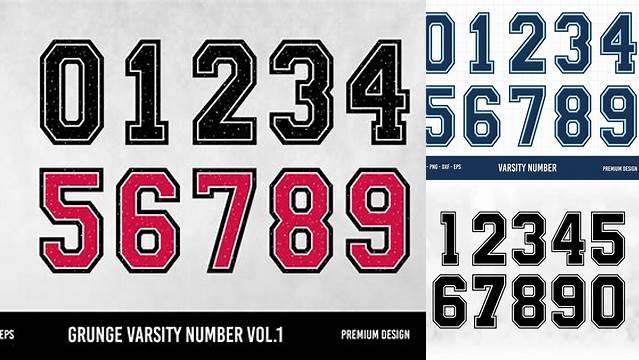
Free Jersey Number Fonts: Downloads And Styles
Hey guys! Ever wondered where to snag those cool jersey number fonts for your designs? You've come to the right place! Whether you're designing a sports jersey, creating graphics for a team, or just love the sporty aesthetic, the right font can make all the difference. This guide dives deep into the world of free jersey number fonts, covering everything from where to find them to how to choose the perfect one. We'll explore different styles, licensing, and even some tips on how to customize them. So, let's get started and find the perfect font to give your project that winning look!
3. Popular Styles of Jersey Number Fonts
When it comes to jersey number fonts, style is everything! You want something that’s both legible and visually appealing, fitting the overall aesthetic of your design. Some popular styles include block fonts, which are bold and impactful, perfect for jerseys that need to stand out. Stencil fonts, with their broken lines, offer a more rugged and sporty feel. Varsity fonts, reminiscent of classic collegiate lettering, are another great option for a traditional look. Consider the specific sport and team you’re designing for – a sleek, modern font might be great for a basketball jersey, while a classic block font could be perfect for a football uniform. Don't be afraid to experiment and see what works best for your project. Remember, the font should complement the overall design and enhance its visual appeal.
4. Free Block Fonts for Jersey Numbers
Ah, block fonts – the powerhouse of jersey lettering! These fonts are bold, impactful, and incredibly easy to read, making them a top choice for jersey numbers. The strong, clean lines of free block fonts ensure maximum visibility, whether the jersey is on the field or in the stands. When searching for block fonts, look for options with uniform thickness and minimal embellishments. This will help maintain legibility and give your design a professional look. Websites like Fontspace and Dafont have a wide selection of block fonts available for download. Just remember to double-check the licensing terms before using them in your projects. A well-chosen block font can instantly elevate your design, giving it that classic, sporty feel that everyone loves!
5. Free Stencil Fonts for Jersey Numbers
Want to add a bit of ruggedness and a vintage vibe to your jersey design? Then free stencil fonts are your best bet! These fonts, characterized by their broken lines and gaps, evoke a sense of history and toughness, making them perfect for sports teams with a strong identity. Stencil fonts are not only visually appealing but also highly functional, as they mimic the look of numbers that have been stenciled onto fabric. When selecting a stencil font, consider the size and spacing of the gaps – you want something that’s both stylish and legible. Many websites offer a variety of stencil fonts for free download, but always be sure to check the licensing agreements to ensure you can use them for your intended purpose. A well-chosen stencil font can add a unique and edgy touch to your jersey design.
6. Free Varsity Fonts for Jersey Numbers
For a classic, collegiate look, you can't go wrong with free varsity fonts! These fonts, inspired by traditional university lettering, exude a sense of heritage and team spirit. Varsity fonts typically feature bold, slightly slanted letters, giving them a dynamic and energetic feel. They're perfect for creating a timeless design that resonates with fans and players alike. When choosing a varsity font, look for options that are clean and legible, with well-defined serifs or slab serifs. This will ensure that the numbers are easy to read, even from a distance. Websites like Google Fonts and Fontspace offer a variety of varsity fonts that you can download for free. Just remember to check the licensing terms before using them in your projects. A varsity font can instantly add a touch of tradition and class to your jersey design.
7. Tips for Choosing the Right Font Size
Okay, guys, let’s talk size! Choosing the right font size for jersey numbers is crucial for visibility and aesthetics. You want the numbers to be large enough to be easily read from a distance, but not so large that they overwhelm the rest of the design. A good rule of thumb is to consider the size of the jersey itself and the viewing distance. For example, numbers on a football jersey might need to be larger than those on a basketball uniform. Also, think about the font style – a bold block font might appear larger than a thinner, more delicate font, even at the same point size. Always test out different sizes and view them from a distance to ensure they're legible. Don’t underestimate the impact of font size; it can make or break your design!
8. How to Customize Free Jersey Number Fonts
Want to take your jersey design to the next level? Customizing free jersey number fonts is the way to go! Even if you're starting with a free font, you can tweak it to perfectly match your team's identity and style. Simple adjustments like changing the color, adding an outline, or applying a shadow effect can make a huge difference. For more advanced customization, you can use design software like Adobe Illustrator or Inkscape to modify the shape of the letters, adjust the spacing, or even add unique design elements. Don’t be afraid to experiment and push the boundaries of the original font. Customization allows you to create a truly unique and memorable jersey design that stands out from the crowd.
9. Using Font Software for Jersey Number Design
If you're serious about jersey design, investing in font software can be a game-changer. Programs like Adobe Illustrator, CorelDRAW, and Inkscape (which is free!) offer powerful tools for working with fonts and creating custom designs. These platforms allow you to manipulate fonts in ways that go far beyond basic text editing. You can adjust the kerning (the space between letters), modify the shape of individual characters, and even create your own custom fonts from scratch. Using font software gives you unparalleled control over your design, allowing you to create unique and professional-looking jerseys. While there's a learning curve involved, the results are well worth the effort. Think of it as leveling up your design skills!
10. The Importance of Legibility in Jersey Fonts
Alright, let's get real – the most important thing about jersey fonts is legibility! No matter how cool or stylish a font looks, if it's hard to read, it's a no-go. Jersey numbers need to be easily visible from a distance, whether the jersey is on the field, in the stands, or on TV. When choosing a font, prioritize clarity over aesthetics. Look for fonts with clean lines, consistent thickness, and ample spacing between characters. Avoid fonts that are overly decorative or have intricate details that can get lost at a distance. Remember, the primary purpose of jersey numbers is identification, so make sure your font makes that job as easy as possible. Legibility is key to a successful jersey design!
11. Pairing Jersey Number Fonts with Team Logos
Finding the perfect jersey number font isn't just about the numbers themselves; it's also about how they complement the team logo. The font and logo should work together harmoniously to create a cohesive and visually appealing design. Consider the overall style of your team logo – is it modern and sleek, or classic and traditional? Choose a font that matches this aesthetic. For example, a team with a bold, geometric logo might pair well with a strong block font, while a team with a more ornate logo might opt for a varsity or stencil font. Pay attention to the proportions and spacing of the numbers in relation to the logo. You want them to be balanced and visually pleasing. A well-paired font and logo can elevate your team's identity and create a lasting impression.
12. Exploring Different Font Weights for Jerseys
Font weight – it's not just about being bold! The weight of a jersey number font can significantly impact its appearance and legibility. Font weight refers to the thickness of the characters, ranging from light to extra-bold. A heavier font weight will make the numbers appear more prominent and easier to read from a distance, which is crucial for jersey design. However, going too heavy can make the numbers look cluttered or overwhelming. A lighter font weight, on the other hand, can create a more subtle and sophisticated look, but may not be as visible. Consider the overall design of the jersey and the team's brand when choosing a font weight. Experiment with different weights to see what works best for your specific project.
13. Using Font Effects to Enhance Jersey Numbers
Want to add some extra flair to your jersey numbers? Font effects can be a fantastic way to enhance their visual appeal and make them stand out. Simple effects like adding an outline, shadow, or gradient can create depth and dimension. More advanced effects, such as bevels, embossing, or textures, can give your numbers a unique and eye-catching look. However, it's important to use font effects sparingly and strategically. Too many effects can make the numbers look cluttered and difficult to read. Consider the overall style of the jersey and the team's brand when choosing effects. A subtle outline or shadow can often be more effective than a complex, over-the-top effect. Remember, the goal is to enhance legibility and visual appeal, not to distract from it.
14. Matching Jersey Fonts with Team Colors
The color of your jersey numbers is just as important as the font itself! Choosing the right color combination can make your numbers pop and create a visually striking design. The key is to ensure there’s enough contrast between the font color and the jersey color. A light font on a dark jersey or a dark font on a light jersey will always be more legible than a low-contrast combination. Consider your team's colors and how they interact with different font colors. For example, a classic color combination like white numbers on a navy blue jersey is always a safe bet. You can also use color to create visual interest or highlight certain design elements. Just remember to prioritize legibility and ensure the colors work well together to create a cohesive and professional look.
15. Creating Custom Number Sets for Jerseys
Feeling creative? Why not design your own custom number sets for jerseys? Creating a unique set of numbers can set your team apart and give them a distinct identity. You can start by modifying an existing font or creating a set from scratch using font design software. Consider the overall style of your team and the message you want to convey. Do you want your numbers to look modern and sleek, or classic and traditional? Think about the proportions, spacing, and any unique design elements you want to incorporate. Creating a custom number set is a great way to showcase your creativity and create a truly one-of-a-kind jersey design.
16. How to Use Free Fonts Commercially for Jerseys
Okay, let’s dive into the nitty-gritty of using free fonts commercially for jerseys. It’s super important to understand the licensing terms before you start using any font in a project that you intend to sell or use for business purposes. As we touched on earlier, not all “free” fonts are actually free for commercial use. Some are only licensed for personal use, meaning you can use them for your own hobbies and projects, but not for anything that generates income. To ensure you’re in the clear, always check the font’s license agreement. Websites like Dafont and Fontspace usually have the licensing information clearly displayed on the font’s download page. If you’re unsure, it’s always best to err on the side of caution and contact the font designer directly. Look for fonts with explicit commercial licenses or consider purchasing a commercial license if you really love a particular font. Avoiding licensing issues will save you a lot of potential headaches down the road!
17. The Future of Jersey Number Font Design
What does the future hold for jersey number font design? Well, guys, it’s looking pretty exciting! With advancements in technology and design software, we're seeing more and more innovative and unique fonts emerge. Think about variable fonts, which allow for dynamic adjustments to weight, width, and other characteristics, offering designers unprecedented flexibility. We might also see a rise in 3D-printed fonts or fonts that incorporate interactive elements. The possibilities are endless! As design trends evolve, we can expect jersey number fonts to become even more expressive and personalized, reflecting the unique identities of teams and athletes. Keep an eye on emerging design trends and don’t be afraid to experiment with new styles and technologies. The future of jersey font design is all about pushing boundaries and creating truly memorable designs.
18. Best Practices for Jersey Number Placement
Jersey number placement might seem like a minor detail, but it can have a big impact on the overall look and feel of the uniform. The key is to ensure that the numbers are clearly visible and balanced on the jersey. Typically, numbers are placed on the front and back of the jersey, as well as on the sleeves or shorts, depending on the sport. The size and placement of the numbers should be proportionate to the size of the jersey and the body of the athlete. Consider the shape and design of the jersey when determining placement – you want the numbers to complement the overall aesthetic. Also, be sure to follow any specific guidelines or regulations set by the sport's governing body. Proper number placement enhances legibility and gives the uniform a professional and polished appearance.
19. How Different Sports Influence Font Choice
Different sports often call for different font styles. The fast-paced action of basketball might benefit from a sleek, modern font, while the more traditional game of baseball might pair well with a classic varsity font. Consider the sport's history, culture, and overall aesthetic when choosing a font. For example, football jerseys often feature bold, block fonts for maximum visibility on the field, while soccer jerseys might use more stylized and dynamic fonts to reflect the sport's international flair. Think about the personality of the team and the message you want to convey. A well-chosen font can enhance the sport's identity and create a strong visual connection with fans.
20. Exploring Handwritten Style Fonts for Jerseys
While not as common as block or stencil fonts, handwritten style fonts for jerseys can add a unique and personal touch. These fonts, which mimic the look of handwriting, can create a more informal and approachable feel. However, it’s crucial to use handwritten fonts carefully, as legibility can be a concern. Choose a font that is clear and easy to read from a distance, avoiding overly decorative or intricate styles. Handwritten fonts can be a great option for teams looking to stand out and express their individuality, but always prioritize clarity and ensure the font complements the overall design of the jersey.
21. Common Mistakes to Avoid When Choosing Fonts
Alright, let's talk about some common font faux pas! Choosing the wrong font can sink your entire jersey design, so it's important to know what to avoid. One of the biggest mistakes is prioritizing style over legibility. Remember, jersey numbers need to be easily read from a distance, so clarity is key. Another common mistake is using too many different fonts in one design. Stick to a maximum of two fonts to avoid a cluttered and chaotic look. Also, be wary of trendy fonts that might look dated in a few years. Opt for classic and timeless styles that will stand the test of time. Finally, always double-check the licensing terms before using a font commercially. Avoiding these mistakes will help you create a professional and visually appealing jersey design.
22. The Psychology Behind Font Choices for Jerseys
Did you know that font choices can evoke different emotions and perceptions? The psychology behind fonts is a fascinating field, and it can be applied to jersey design to create a specific feeling or message. For example, bold, block fonts often convey strength and power, while more rounded fonts might create a sense of friendliness and approachability. Serif fonts, with their small decorative strokes, tend to evoke a sense of tradition and authority, while sans-serif fonts often feel more modern and clean. Consider the message you want to convey and the overall identity of your team when choosing a font. A well-chosen font can subtly influence how people perceive your team and its brand.
23. How Font Technology Impacts Jersey Design
Font technology has come a long way, and these advancements are having a significant impact on jersey design. The advent of variable fonts, for instance, allows designers to dynamically adjust font characteristics like weight, width, and slant, creating a wide range of variations from a single font file. This offers unprecedented flexibility and control over typography. OpenType fonts, with their advanced typographic features, enable designers to create more sophisticated and nuanced designs. Digital font creation tools make it easier than ever to design custom fonts from scratch, opening up a world of possibilities for unique and personalized jersey designs. As font technology continues to evolve, we can expect even more exciting innovations in jersey design.
24. The Role of Spacing and Kerning in Legibility
Spacing and kerning – these might sound like technical terms, but they're crucial for ensuring legibility in jersey fonts. Spacing refers to the overall space between characters, while kerning specifically addresses the space between individual letter pairs. Proper spacing and kerning prevent letters from crowding each other, making the numbers easier to read from a distance. If letters are too close together, they can blur into each other, while too much space can make the numbers look disjointed. Most font software allows you to adjust spacing and kerning manually, giving you fine-grained control over the appearance of your text. Pay attention to these details, and your jersey numbers will be crystal clear.
25. How to Test Font Legibility on Different Jerseys
Okay, you've chosen your font, but how do you know it will look good on the actual jersey? Testing font legibility is a crucial step in the design process. Before you commit to a final design, create mockups of the jersey with the font applied. View the mockups from different distances and angles to simulate real-world viewing conditions. Print out the design and see how it looks on paper. You can even create a sample jersey using fabric and the chosen font. Pay attention to how the font appears on different fabric textures and colors. Does the font stand out clearly? Is it easy to read? Testing your font will help you identify any potential issues and ensure that your final design is both stylish and legible.
26. Advanced Typography Techniques for Jerseys
Ready to take your jersey design skills to the next level? Let's explore some advanced typography techniques! One technique is to use ligatures, which are special characters that combine two or more letters into a single glyph. Ligatures can add a touch of elegance and sophistication to your design. Another technique is to experiment with different typographic hierarchies, using variations in font size, weight, and style to create visual interest and guide the viewer's eye. You can also explore using custom lettering or hand-drawn elements to create a truly unique and personalized design. Don't be afraid to push the boundaries of traditional typography and experiment with new and innovative approaches.
27. The Impact of Jersey Material on Font Appearance
The jersey material can actually have a significant impact on how your font appears. Different fabrics have different textures and properties that can affect the legibility and overall look of the numbers. For example, a smooth, matte fabric will typically provide a cleaner and sharper appearance than a textured or porous fabric. Shiny or reflective fabrics can create glare, making the numbers harder to read. Consider the fabric type when choosing your font and font effects. A bold, simple font might work well on a textured fabric, while a more delicate font might be best suited for a smooth material. Always test your font on the actual jersey fabric to ensure it looks its best.
28. Resources for Learning More About Typography
Want to become a typography pro? There are tons of resources available to help you learn more about the art and science of typography! Online courses, such as those offered on Coursera or Skillshare, can provide in-depth knowledge of typographic principles and techniques. Books like “The Elements of Typographic Style” by Robert Bringhurst and “Thinking with Type” by Ellen Lupton are considered essential reading for designers. Websites like Typography.com and I Love Typography offer articles, tutorials, and inspiration. You can also join online communities and forums to connect with other designers and share your knowledge. The more you learn about typography, the better equipped you'll be to create stunning and effective jersey designs.
29. Legal Considerations for Using Free Fonts
Alright, let’s have a quick chat about the legal side of using free fonts. We've touched on licensing before, but it’s so crucial that it’s worth revisiting. Using a font without the proper license can lead to some serious legal trouble, so it's always best to be informed and cautious. Always, always check the license agreement before using a font in any project, especially if it’s for commercial purposes. Make sure you understand what you’re allowed to do with the font – can you use it for commercial projects? Can you modify it? Can you redistribute it? If the license terms aren't clear, reach out to the font designer or the website where you downloaded the font. Playing it safe and understanding the legal implications of your font choices will protect you from potential legal issues.
30. Future Trends in Sports Jersey Design
The world of sports jersey design is constantly evolving, influenced by trends in fashion, technology, and sports culture. So, what might we see in the future? Expect to see more integration of technology, such as embedded sensors or interactive elements in jerseys. Sustainable and eco-friendly materials are also becoming increasingly important. In terms of aesthetics, expect to see a continued emphasis on personalization and customization, with teams seeking to create unique and memorable identities. Variable fonts, as we discussed earlier, will likely play a bigger role in jersey design, allowing for greater flexibility and creativity. Bold colors, geometric patterns, and minimalist designs are also expected to be popular. Staying up-to-date on design trends will help you create jerseys that are both stylish and cutting-edge.